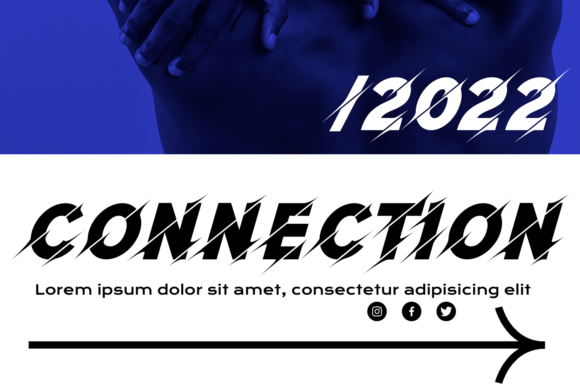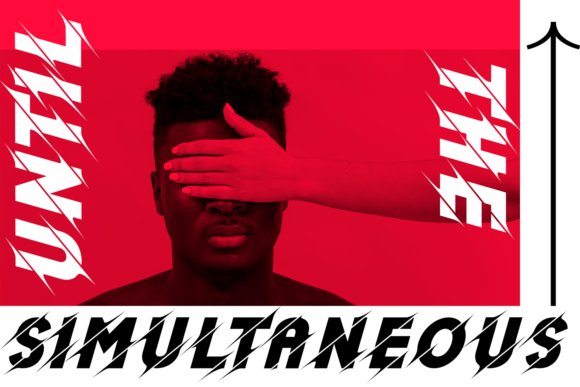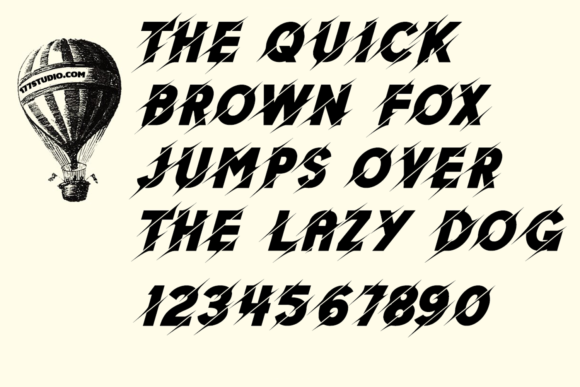
Introduction to Giver Made Font
Have you ever stumbled upon a font that makes your design vision come alive? For me, that moment happened when I discovered the Giver Made Font. Its bold, sporty style instantly elevated my crafting project, transforming it from ordinary to extraordinary.
| 👤 Author | 177Studio |
As a designer, I know how crucial the right font can be in bringing a creative project to life. That’s why I’m excited to share with you the Giver Made Font, a high-quality design resource that’s perfect for adding a touch of personality to your branding, labels, cards, and more. With its transparent background and free download option, you can easily incorporate this font into your next project, giving it a unique and eye-catching look.
Key Features of Giver Made Font
- High-quality, unique font design perfect for creative projects and personal use.
- Unique characteristics include elegant, modern design elements and a range of stylistic alternates for added creativity.
Honest Review: Giver Made Font
I recently stumbled upon the Giver Made Font, and I must say, it’s been a great addition to my design resource library. The font’s high quality is immediately noticeable, with crisp lines and a smooth texture.
One of the standout features of the Giver Made Font is its transparent background, which makes it super easy to use in creative projects. The font’s versatility is a major plus, as it can be used for a wide range of designs, from logos to typography-based art.
However, there are a few limitations to consider. The font selection is relatively limited, and it may not be suitable for large-scale commercial projects.
Overall, I’m impressed with the Giver Made Font. It’s a great resource for designers who are looking for a high-quality, free font to use in their creative projects. While it may have some limitations, it’s definitely worth checking out.
For the best results, use Giver Made Font on a high quality design resource, such as a transparent background. This will allow you to achieve a crisp and clear design. Additionally, consider using Giver Made Font for a creative project, such as a logo or infographic.
Giver Made Font is a versatile design resource that can be used in a variety of creative projects. Some common use cases include:
- Brochures